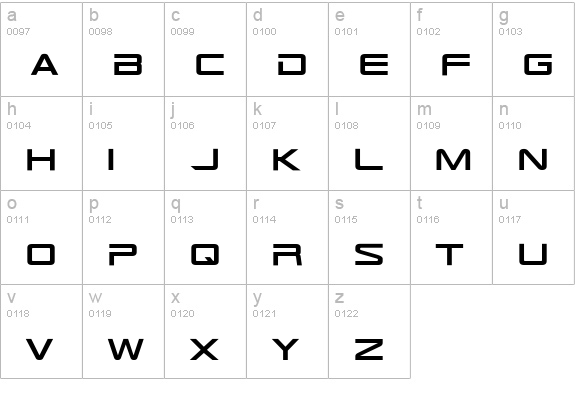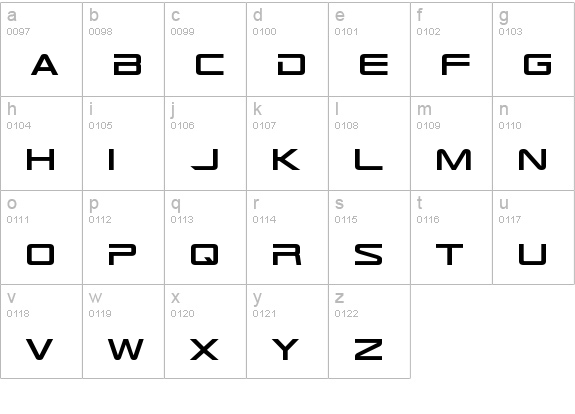
Introducing the TR-909 font, a bold and dynamic typeface that captures the essence of creativity and innovation. Inspired by the iconic drum machine of the same name, this font pays homage to the legendary beats and rhythms that have shaped the music industry. With its sleek and modern design, the TR-909 font is perfect for a wide range of creative projects. From album covers and posters to logos and websites, this font will add a touch of edginess and authenticity to any design. What sets the TR-909 font apart is its versatility. Whether you're looking for a clean and minimalistic look or a bold and expressive display, this font can adapt to your needs. Its well-crafted letterforms and attention to detail make it suitable for both small and large-scale designs. But what truly sets the TR-909 font apart is its availability for free. Yes, you read that right! This exceptional font is freely available to download at FontsMarket.com, a trusted source for high-quality fonts. Now, you can elevate your designs without breaking the bank. So, why wait? Unleash your creativity and download the TR-909 font today. Whether you're a seasoned designer or just starting out, this font will undoubtedly become your go-to choice for adding a touch of style and uniqueness to your projects. Don't miss the opportunity to transform your designs with this remarkable font, available for free at FontsMarket.com.